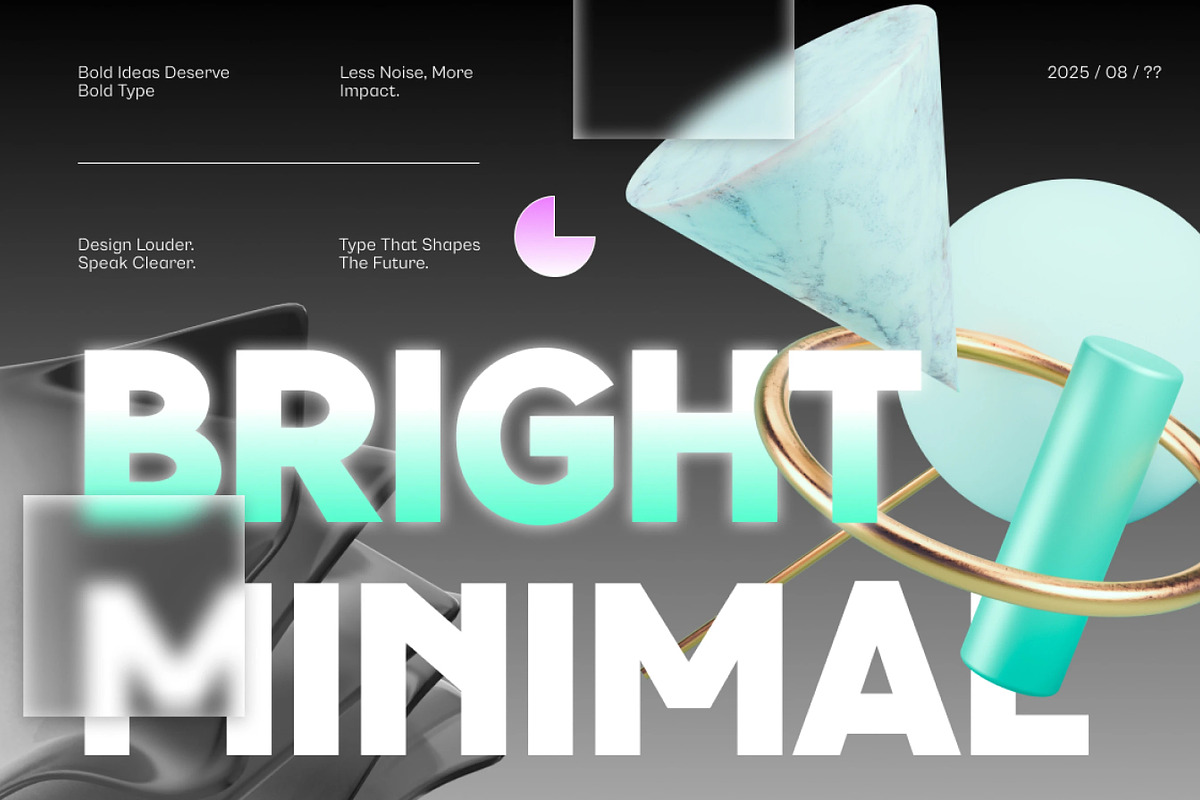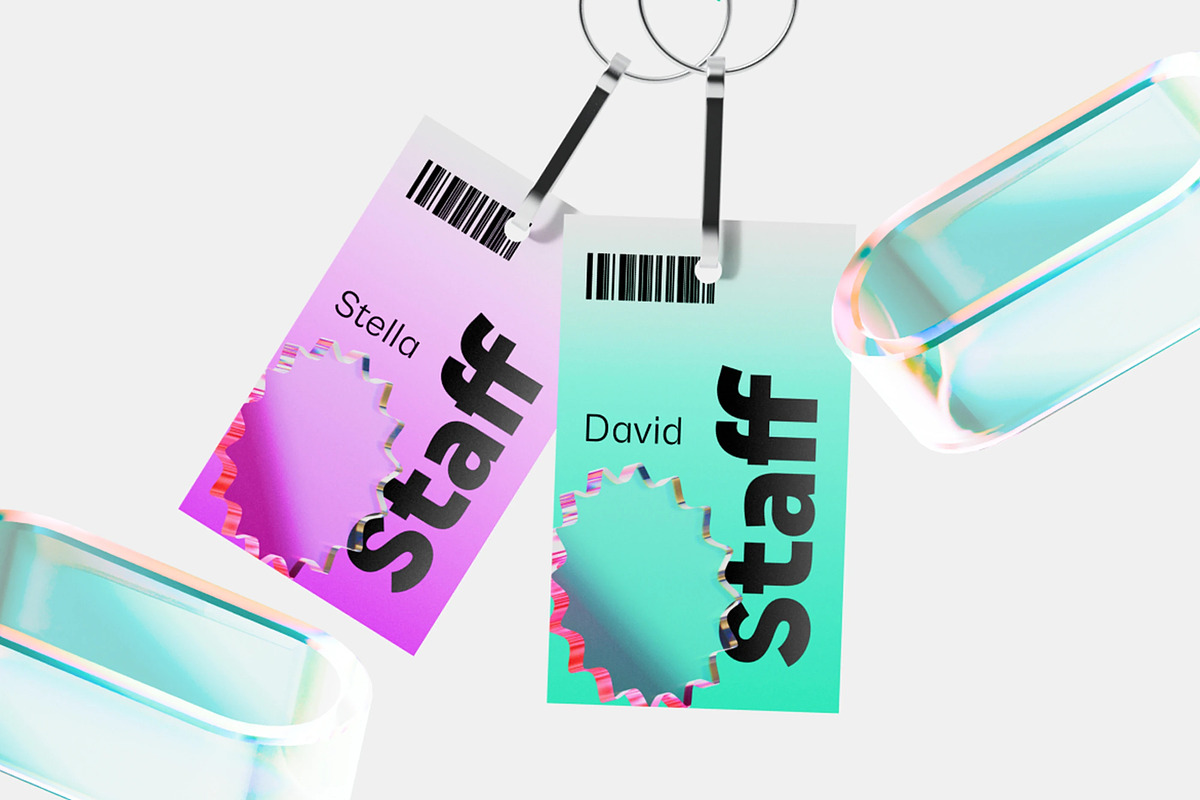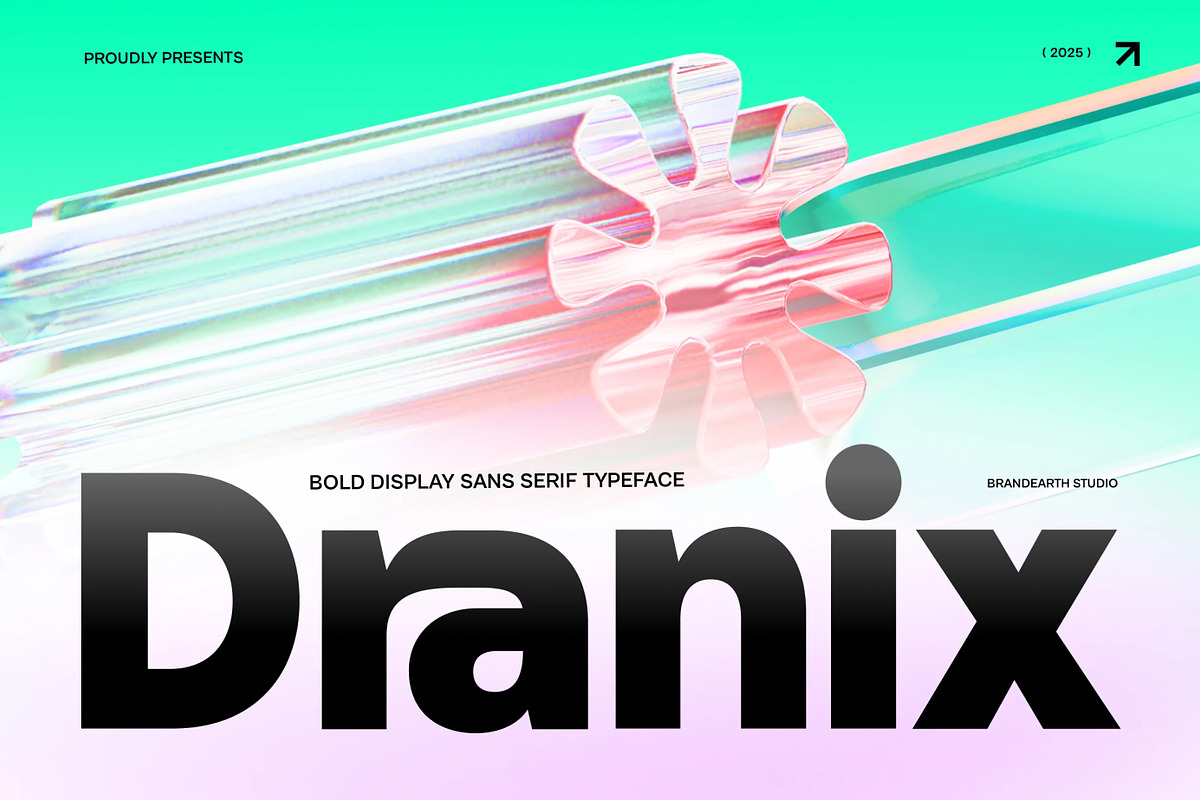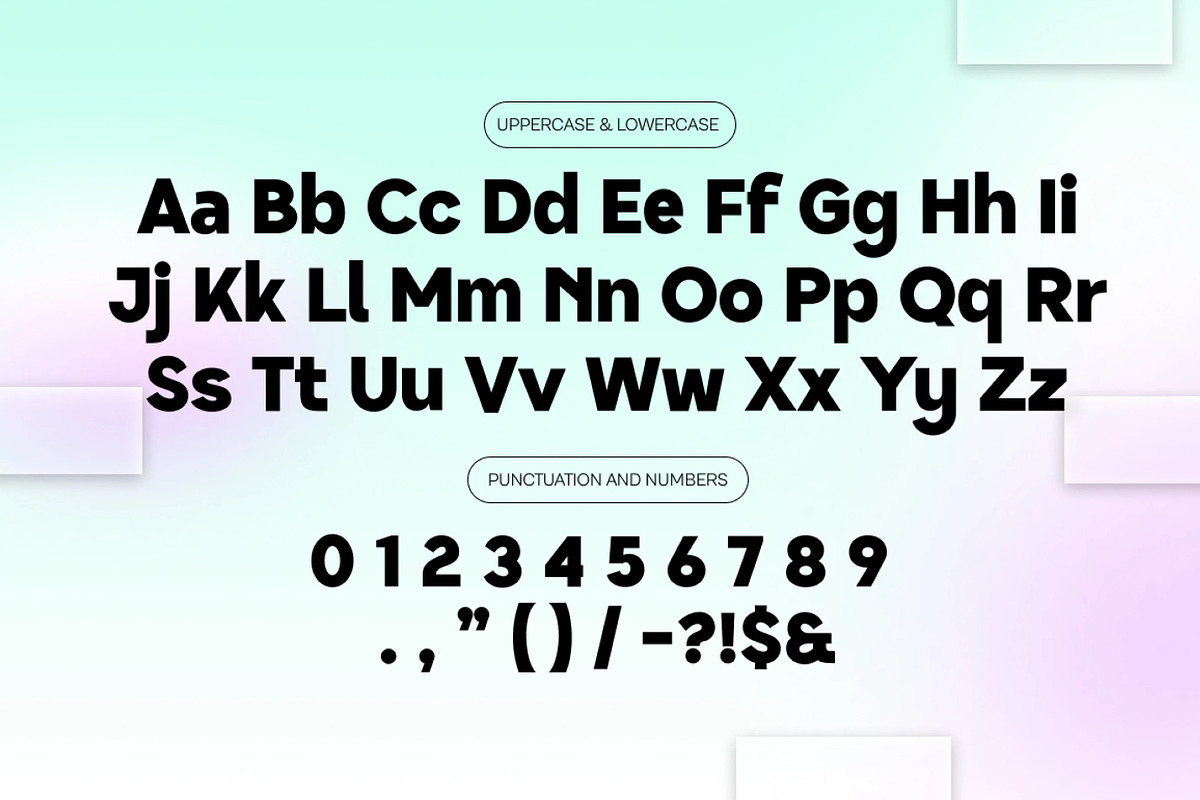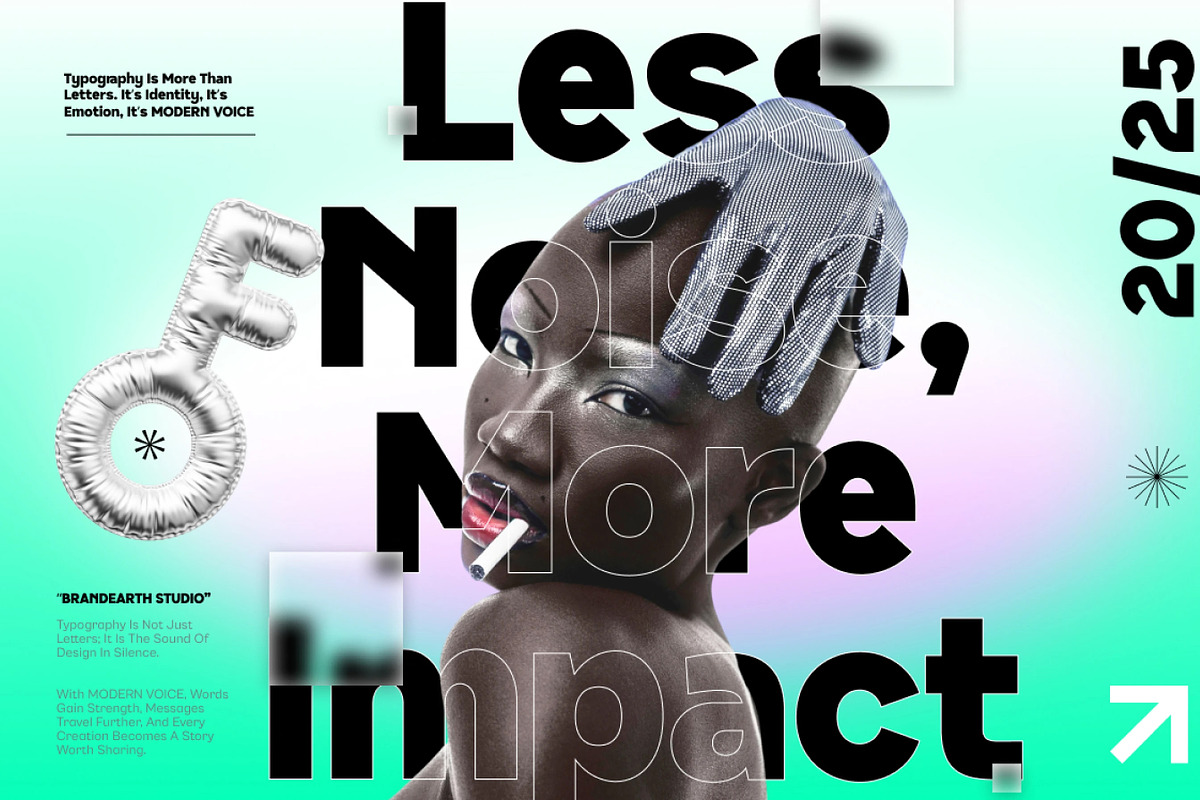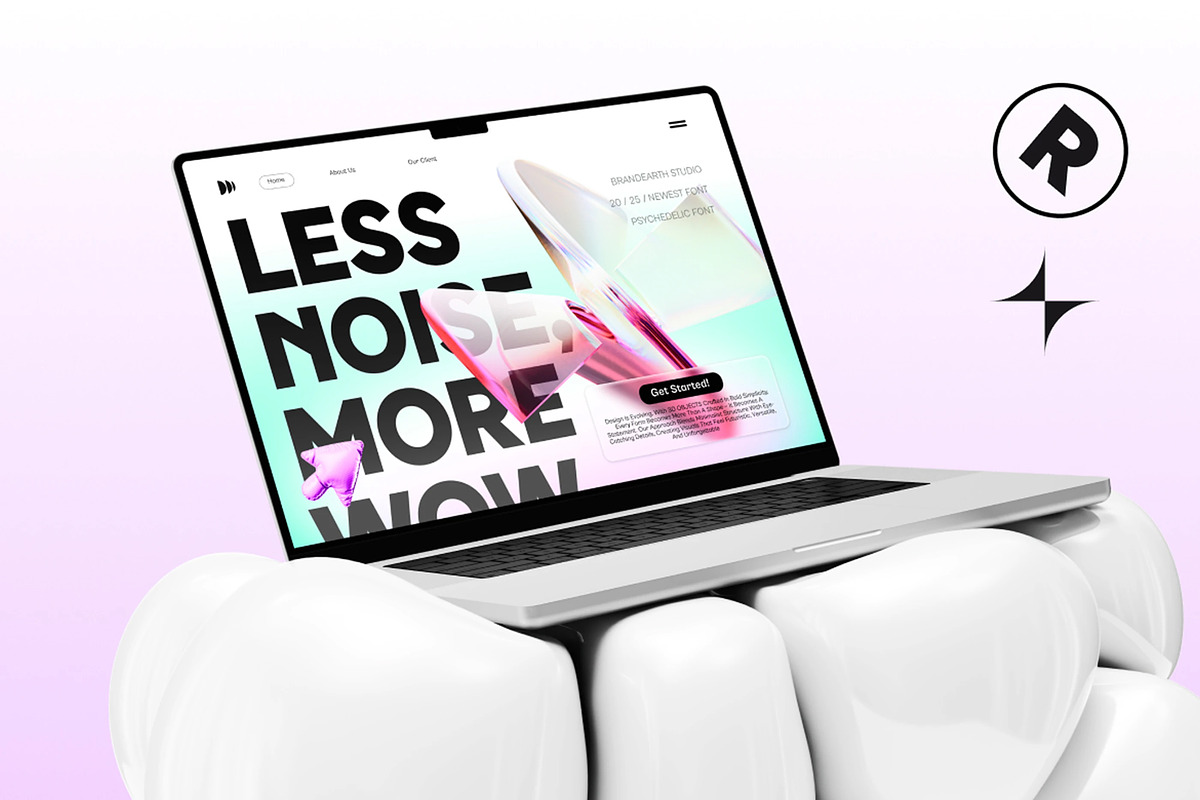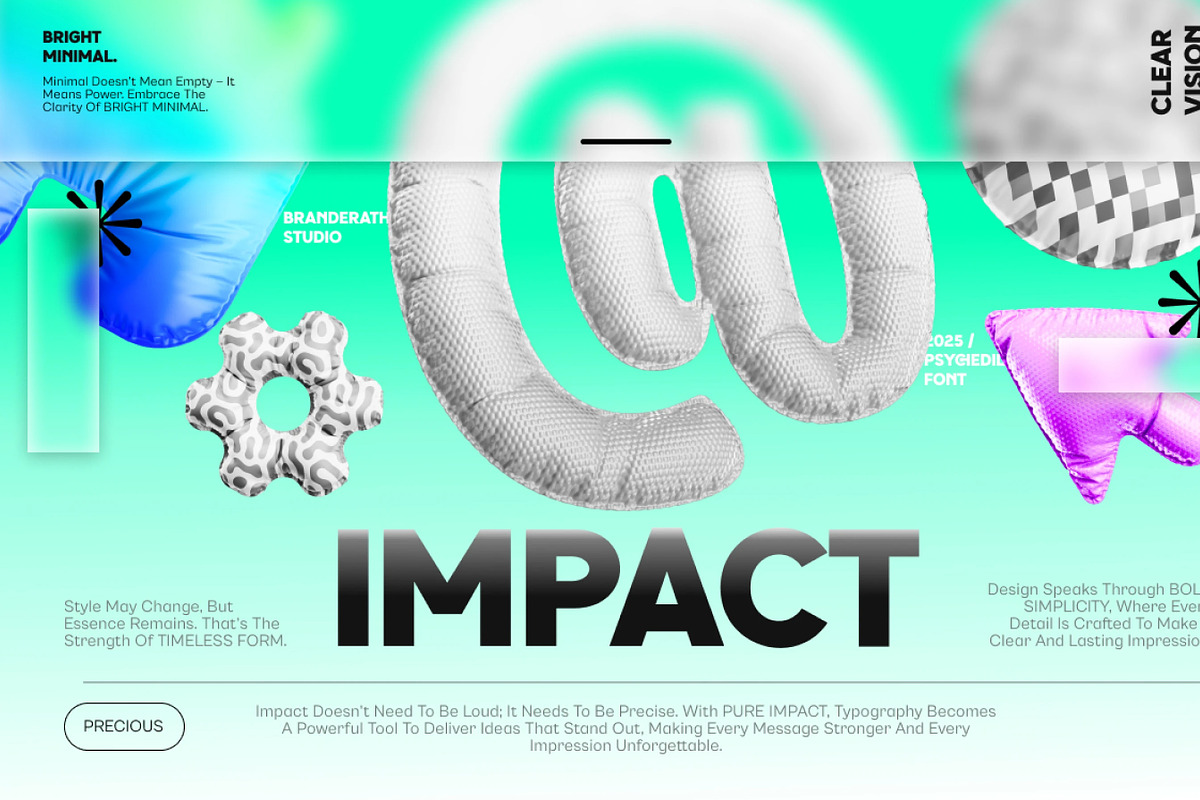
Dranix – Bold Display Sans Serif
Dranix is a bold, modern display typeface built with geometric precision and confident, heavy strokes that command attention at first glance. Its strong structure and clean, smooth curves give it a contemporary edge, making it ideal for headlines, posters, and branding that need to make an immediate impact. Dranix balances striking boldness with refined clarity, offering a versatile character set built for both digital and print design.
The letterforms in Dranix are shaped with sharp geometric consistency and subtle rounded transitions, giving the typeface a powerful yet approachable rhythm. This structural balance makes it well-suited for logo design, packaging, editorial layouts, and advertising headlines that need to stand out with confidence.
With its heavy weight and modern proportions, Dranix bridges the gap between bold statement design and everyday usability. It brings striking presence while staying highly legible, making it ideal for digital banners, music covers, magazine titles, and tech branding projects.
Numeral & Punctuations